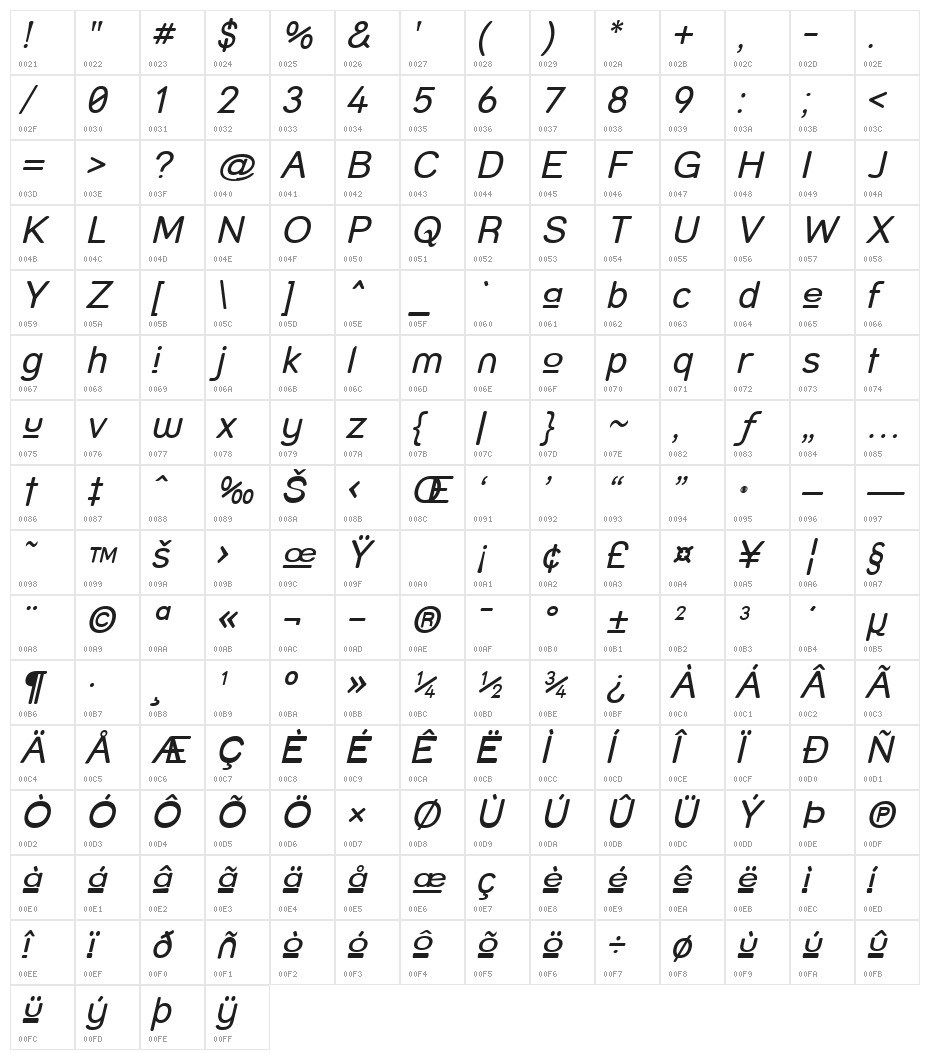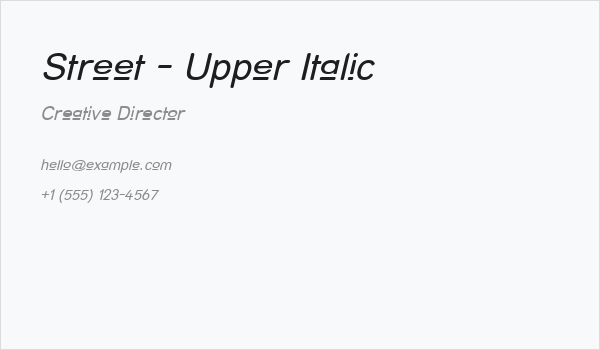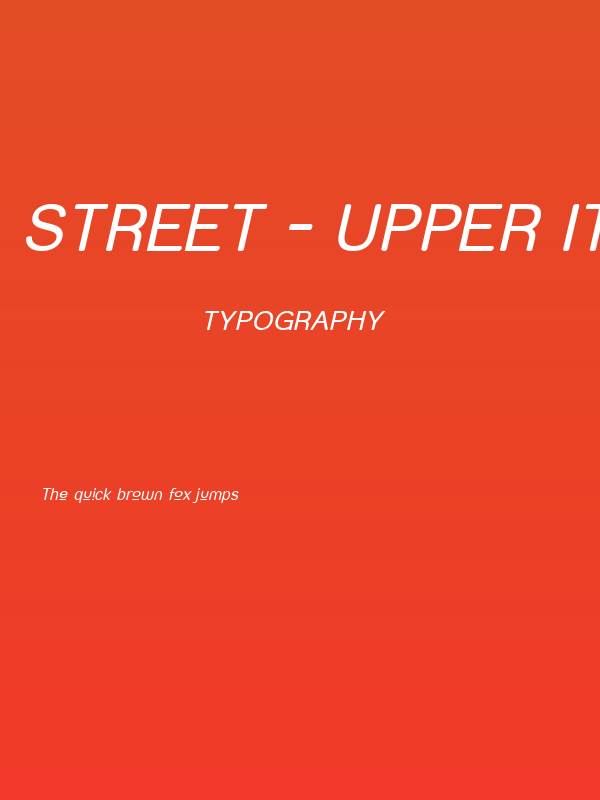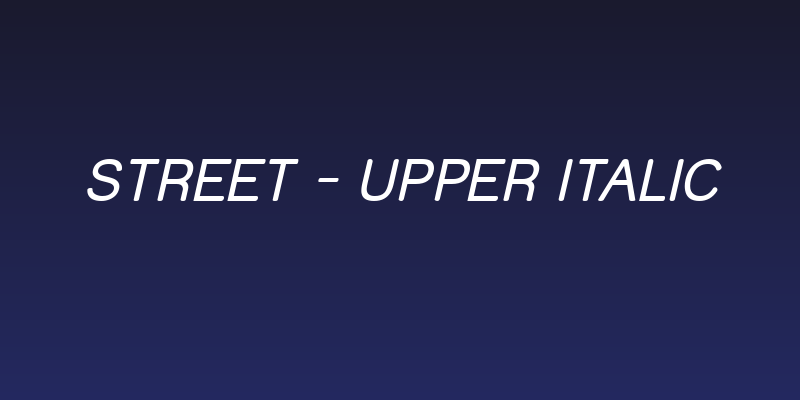
Street - Upper Italic Font
Street - Upper Italic Description
This font features a sleek and modern italic style, characterized by its smooth curves and slightly slanted letters, which convey a sense of motion and dynamism. The uppercase letters maintain a consistent height, while the lowercase letters exhibit a harmonious balance between ascenders and descenders. The numerals are clear and easily distinguishable, with a rounded appearance that complements the overall aesthetic. Special characters are well-integrated, maintaining the font's cohesive look. The design is versatile, making it suitable for a variety of applications where a contemporary and stylish impression is desired.
| Use Case | Headlines, Logos, Editorial design |
| Proposed Projects | Ideal for branding, advertising, and editorial design projects that require a modern and stylish touch. |